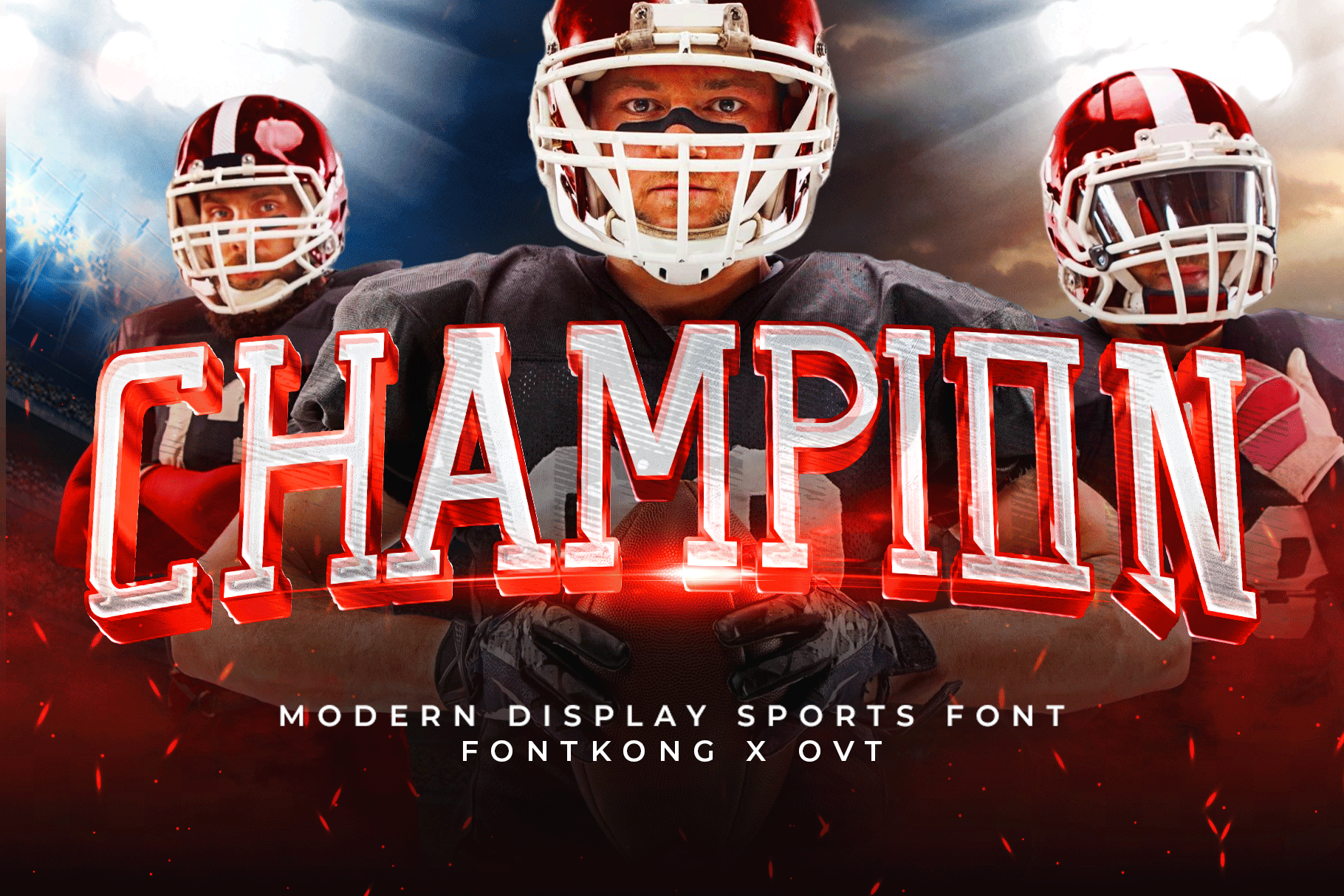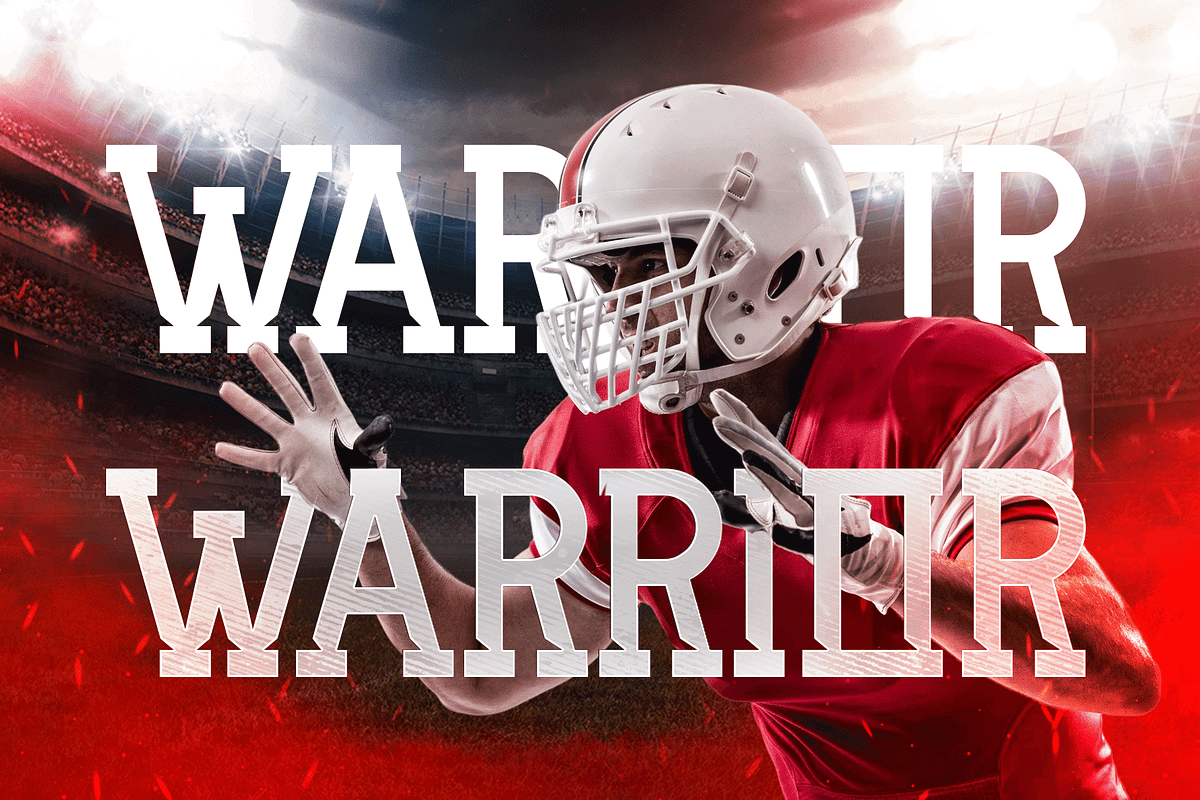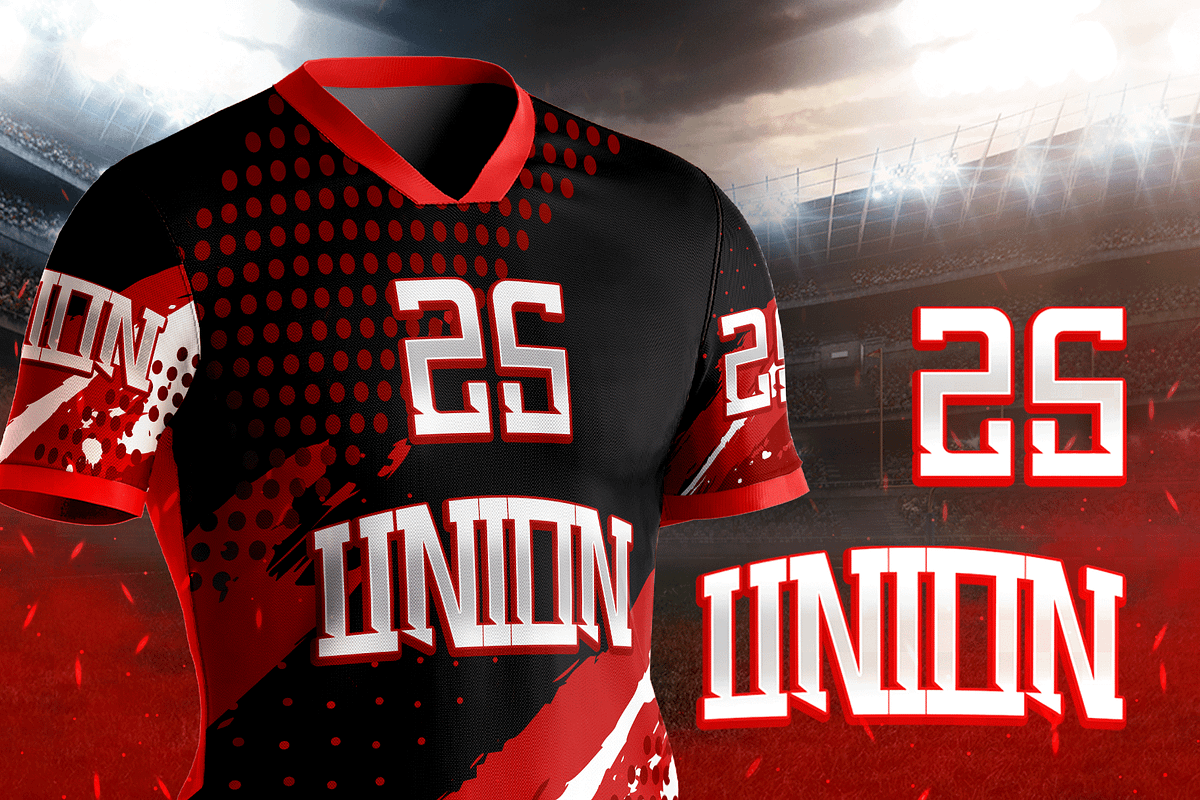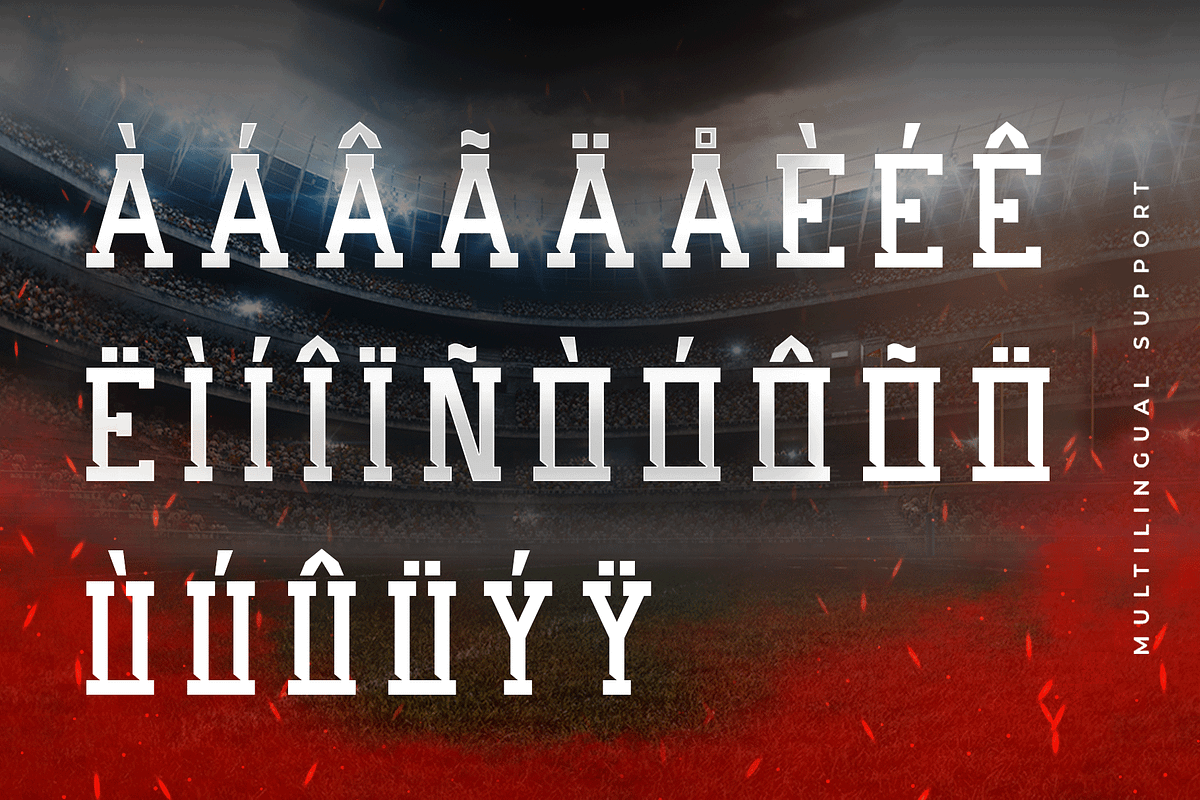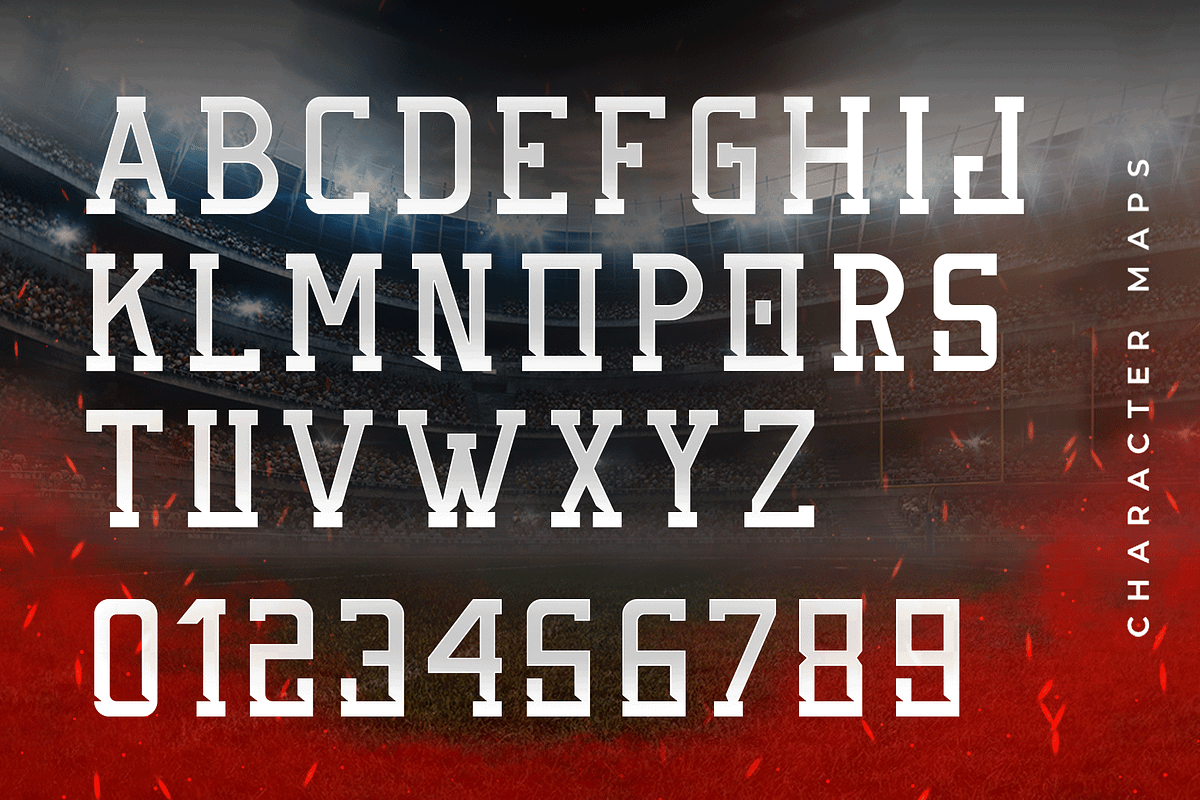
Champion-Modern Display Sports Font
Champion - Modern Display Sports Font
Introducing "Champion," a modern display sports font that brings the spirit of victory and the energy of the game to your design projects. Perfect for graphic designers, sports marketers, and creatives working on athletic-themed designs, Champion offers a bold and dynamic typeface that stands out with its robust and sporty aesthetic.
Ideal for sports branding, team logos, posters, merchandise, and event promotions, Champion’s powerful characters provide a strong and impactful visual presence. Each letter is meticulously crafted to convey strength and movement, making your designs both motivating and memorable.
The "Champion" font includes a complete set of uppercase and lowercase letters, numbers, punctuation marks, and special characters. This versatile set ensures seamless integration into various design projects, from energetic sports branding to eye-catching promotional materials.
Elevate your designs with Champion, the modern display sports font that embodies victory in every letter.